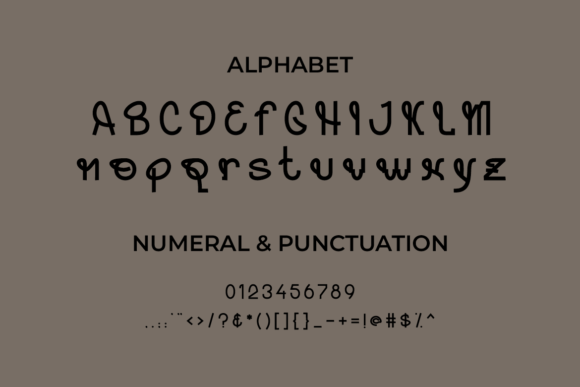
Introducing Amoh Font: The Fun and Unique Display Font You Need
Are you tired of using the same old fonts in your design projects? Look no further! Amoh Font is here to shake things up with its fun and unique display font style. This exciting new font is perfect for designers and crafters looking to add a touch of personality to their work. In this article, we’ll dive into the world of Amoh Font and explore its features, benefits, and uses.
What is Amoh Font?
Amoh Font is a display font designed to make a statement. Its unique and fun style sets it apart from other fonts, making it perfect for projects that require a bit of flair. Whether you’re working on a logo, poster, or social media graphic, Amoh Font is sure to turn heads.
Key Features of Amoh Font
- Unique and Fun Style: Amoh Font has a one-of-a-kind design that’s sure to grab attention.
- Display Font: Perfect for headlines, titles, and short text passages.
- Easy to Read: Despite its unique style, Amoh Font is easy to read, even at smaller sizes.
- Versatile: Works well in a variety of design contexts, from digital to print.
Benefits of Using Amoh Font
So, why should you choose Amoh Font for your next project? Here are just a few benefits:
- Adds Personality: Amoh Font brings a touch of fun and whimsy to your designs.
- Stand Out: With Amoh Font, your designs are sure to stand out from the crowd.
- High-Quality: Amoh Font is designed to deliver high-quality results, every time.
Who Can Use Amoh Font?
Amoh Font is perfect for a variety of designers and crafters, including:
- Graphic Designers: Add a touch of personality to your logos, brochures, and other marketing materials.
- Social Media Managers: Use Amoh Font to create eye-catching social media graphics and posts.
- Crafters: Add a personal touch to your handmade projects, such as signs, cards, and invitations.
- Web Designers: Use Amoh Font to create unique and engaging website headers and titles.
Here are a few tips and tricks to get the most out of Amoh Font:
- Experiment with Sizes: Amoh Font looks great at a variety of sizes, so don’t be afraid to experiment.
- Pair with Other Fonts: Try pairing Amoh Font with other fonts for a unique and interesting look.
- Use in Combination with Images: Amoh Font looks great when used in combination with images and graphics.
Amoh Font is a fun and unique display font that’s perfect for designers and crafters looking to add a touch of personality to their work. With its easy-to-read style, versatility, and high-quality design, Amoh Font is sure to become a favorite in your font library. So why wait? Add Amoh Font to your projects today and see the difference for yourself!